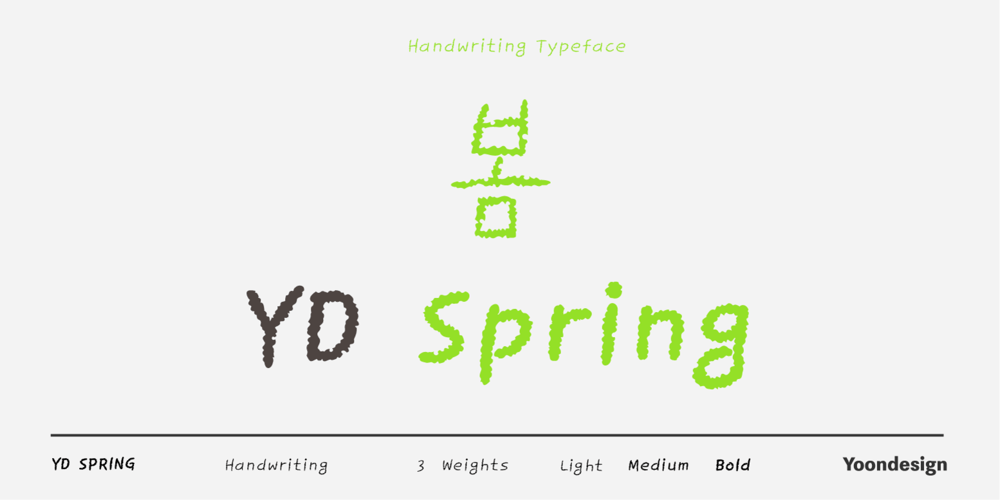
YD Spring Font Family was designed by Yoon Design Team and published by Yoon Design. YD Spring contains 3 styles and family package options. YD Spring Family was designed with a focus on joy of spring season. With measured rhythm and contrasting, YD Spring Family possesses a flowingly smooth elegance. This font family has 3 styles. Also it can be used posters and every kind of graphic design works.